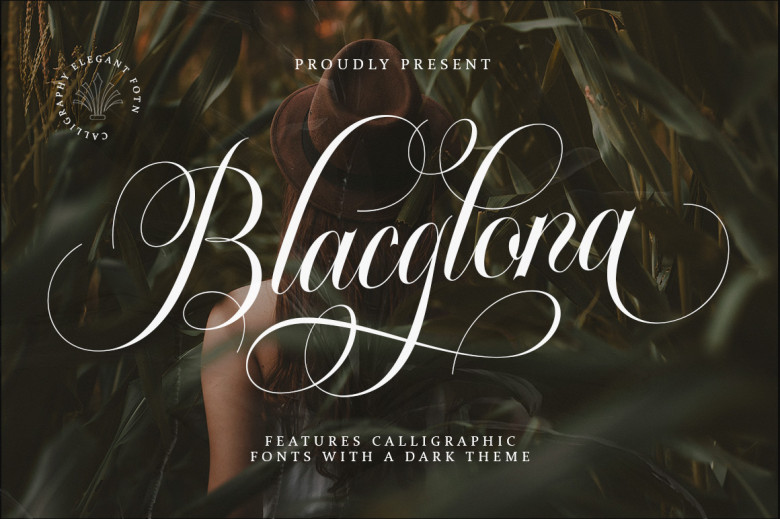
Blacglona Font
Blacglona offers an elegant calligraphic style inspired by Italian women’s handwriting and ancient manuscripts, while carefully designed to complement one another and work harmoniously together – which makes them the ideal choice for wedding favors, book covers, greetings cards, logo brandings, business cards and certificates among other uses.
Blacglona Calligraphy Script Font